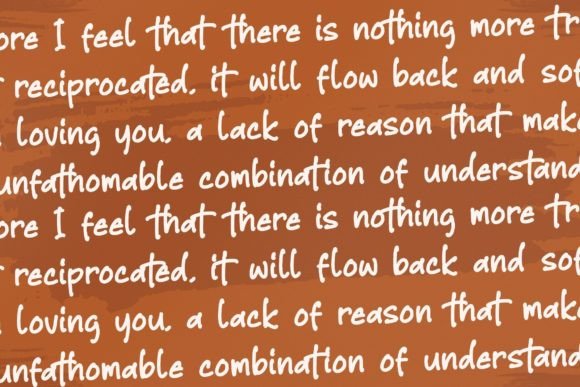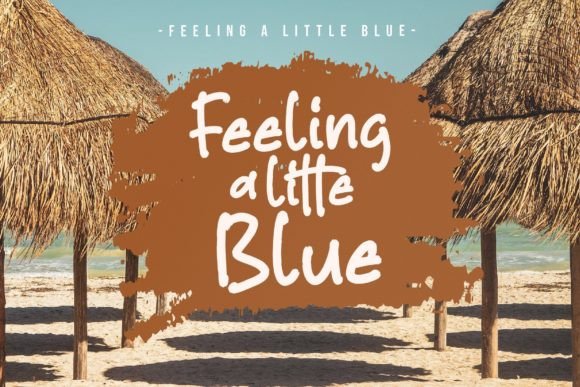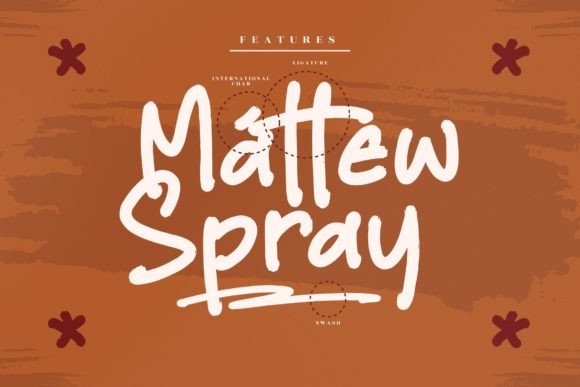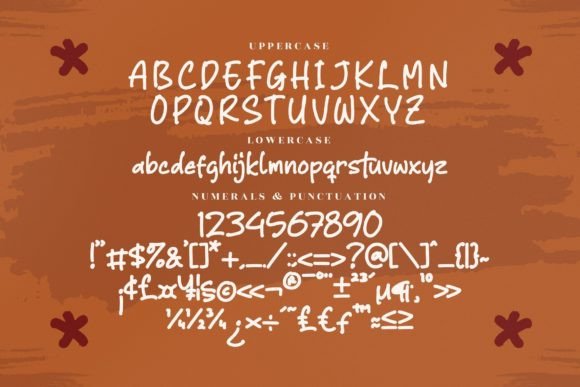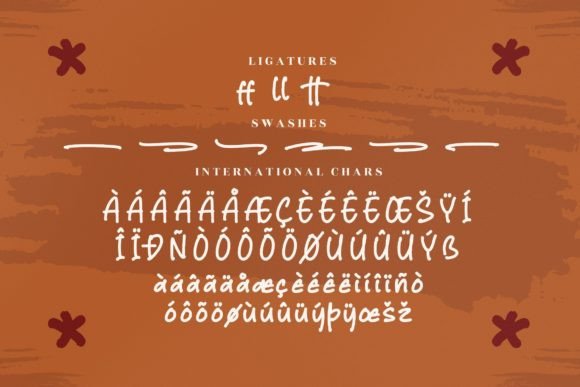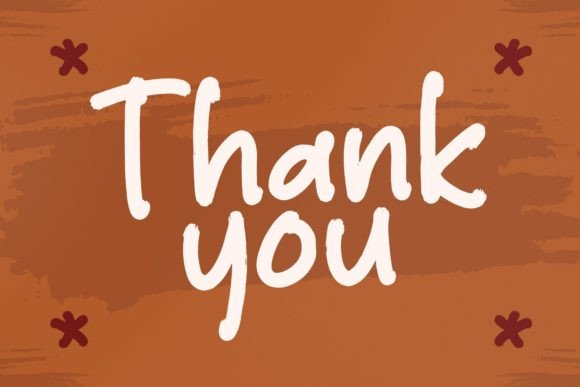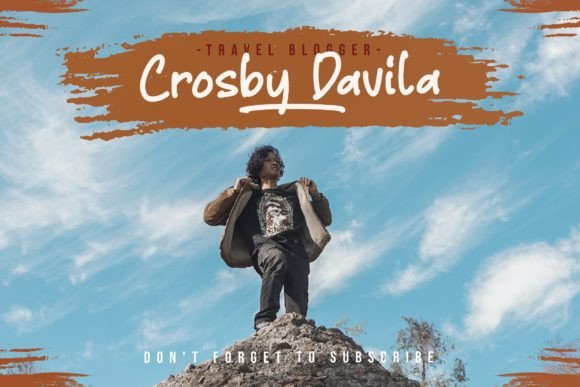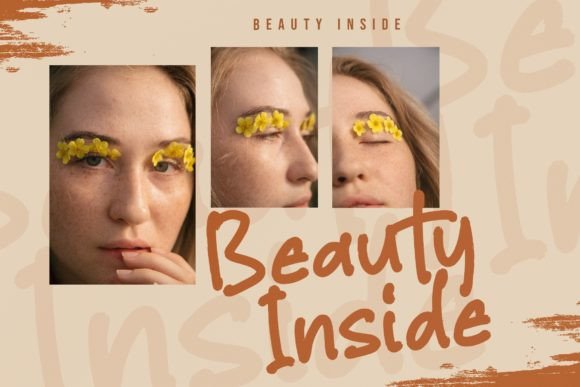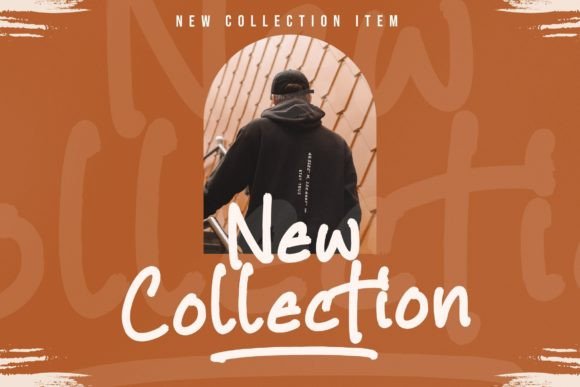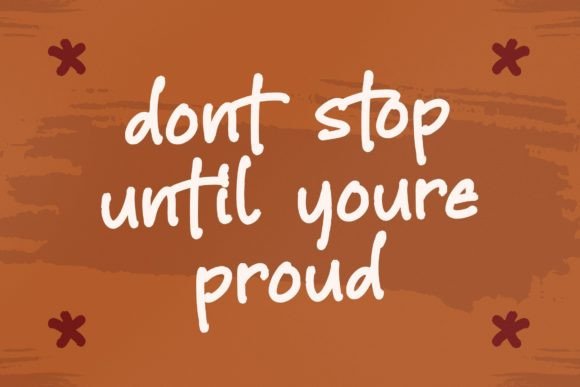
Mattew Font
About Mattew Font
“Forever Summer is a delightful and charming handwritten font duo that captures the essence of sweetness and cuteness. This versatile duo is perfect for a wide array of creative projects, including gorgeous wedding invitations, beautiful stationery art, eye-catching social media posts, and so much more. Its playful yet elegant style adds a touch of whimsy and sophistication, making every design project truly captivating.
What makes Forever Summer special is its ability to infuse a sense of joy and warmth into your designs. The font duo offers a perfect balance between sweetness and versatility, making it suitable for both formal and casual applications. Whether you’re crafting romantic wedding invitations, designing adorable greeting cards, or creating engaging social media graphics, Forever Summer adds a delightful touch that resonates with viewers.
The versatility of Forever Summer shines through in its playful characters and cute handwritten style. The duo includes complementary fonts, allowing you to experiment with various letter combinations and design elements. This flexibility enables you to create unique and personalized designs that reflect your creative vision. Whether you’re adding a touch of elegance to your stationery or crafting playful social media posts, Forever Summer adapts effortlessly, ensuring your projects stand out with charm and creativity.
Incorporating Forever Summer into your designs is like capturing the essence of a carefree summer day. Its sweet and cute handwritten style creates an instant connection with the audience, evoking feelings of happiness and delight. Whether you’re a professional designer or someone with a passion for creativity, Forever Summer empowers you to infuse your projects with a sense of whimsy and charm.
Forever Summer is more than just a font duo; it’s a source of inspiration and creativity. Its playful characters and versatile style make it an invaluable addition to any design toolkit. Embrace the delightful charm of Forever Summer and let your imagination run wild, creating designs that are as sweet and captivating as the warmest days of summer.”